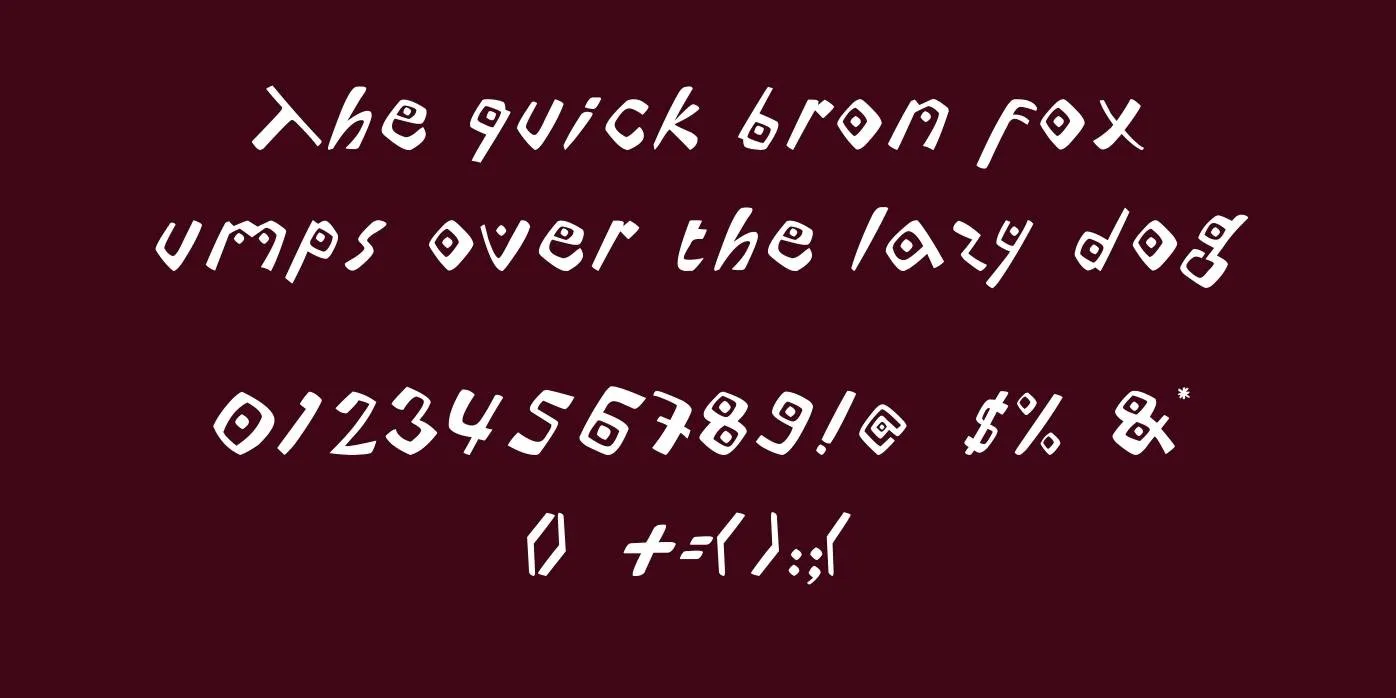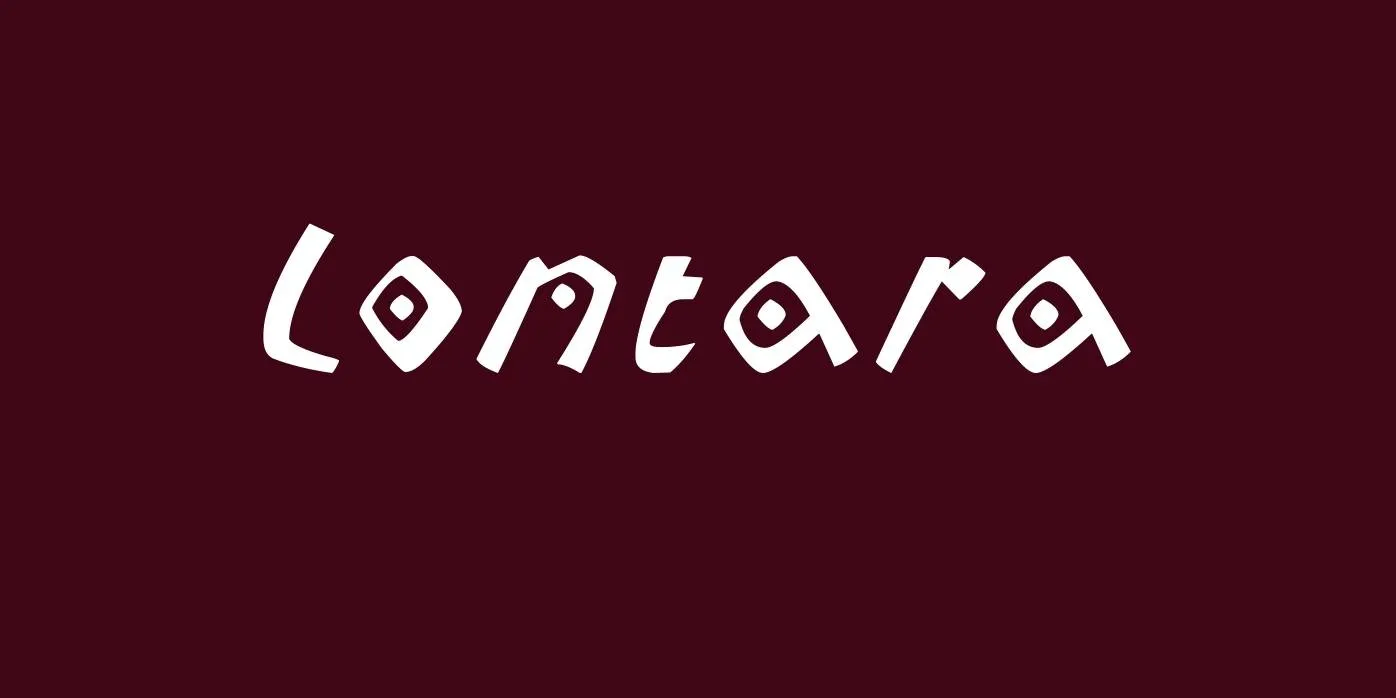
Lontara Font
Lontara Font was created by a famous designer Triden Tan. It is a fancy texture and is perfect for different kinds of designs. This font has bold characters but they are stylish. The characters of this texture are bold but zig-zag.
The zig-zag property of its characters decreases its readability. But its characters support capital letters, lowercase letters, punctuation, numbers, and special characters. It comes in both Truetype font(TTF) and Opentype font (OTF). The kitchen kapers font can be paired with this font.